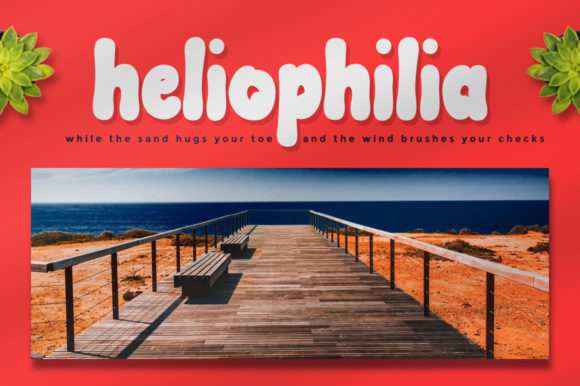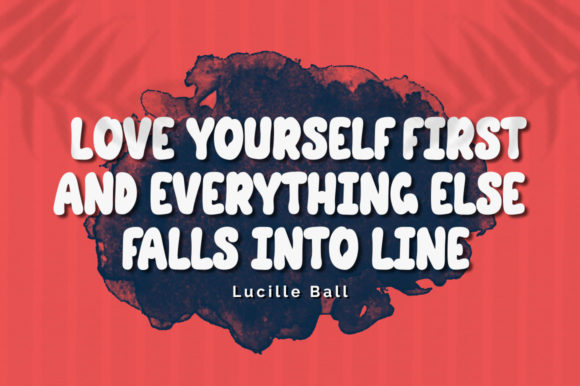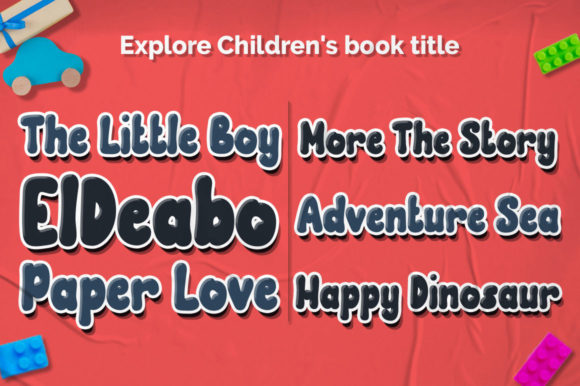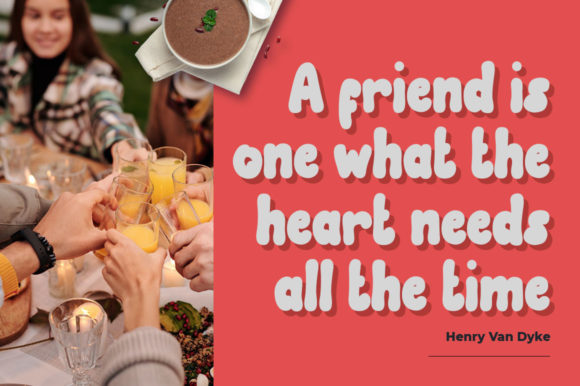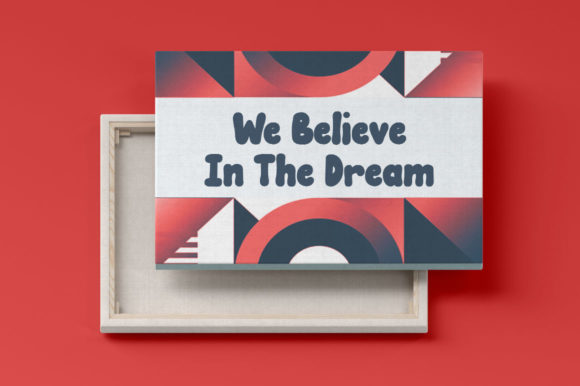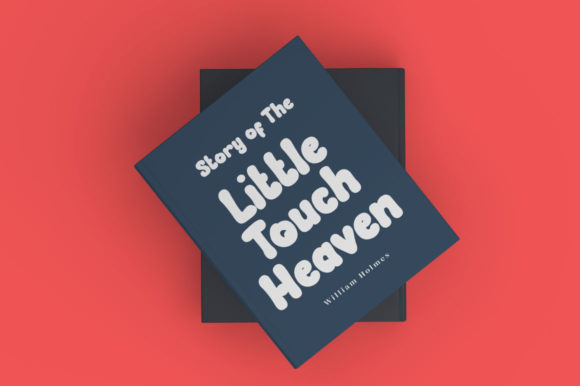
Introduction to Lizadah Font
Lizadah is a cool, trendy and bubbly display font.
It embodies playfulness and authenticity and is the perfect choice for any children activity or school project .